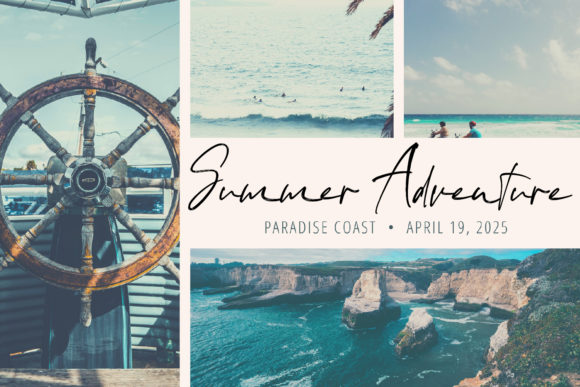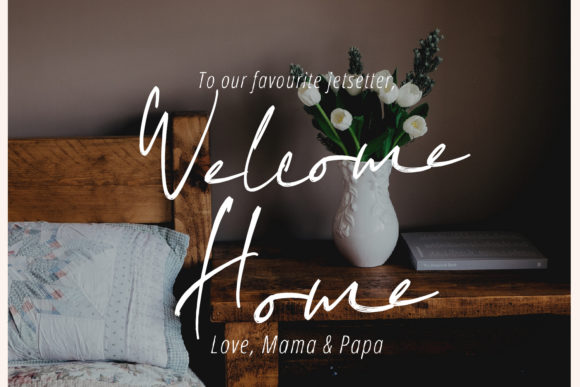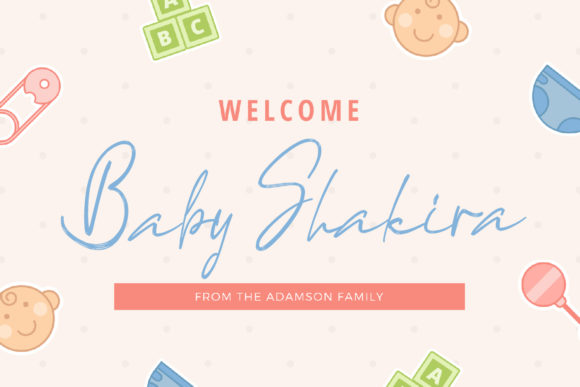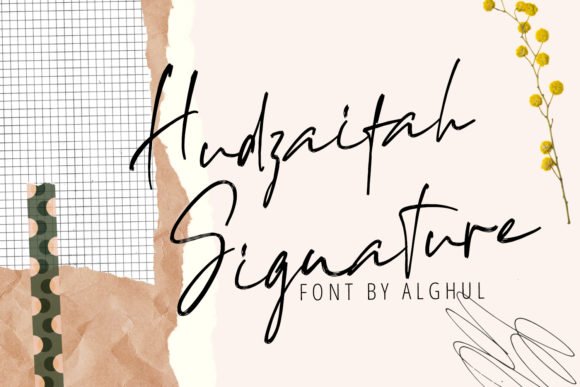
Introduction to Hudzaifah Font
Hudzaifah is a delicate and elegant handwritten font.
Its distinct and well rounded letters make this font a masterpiece Fall in love with its incredibly versatile style and use it to create spectacular designs.